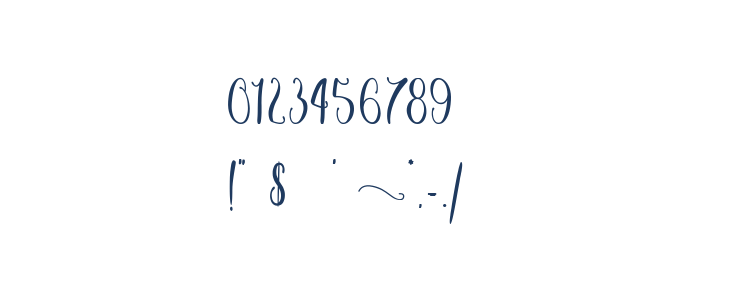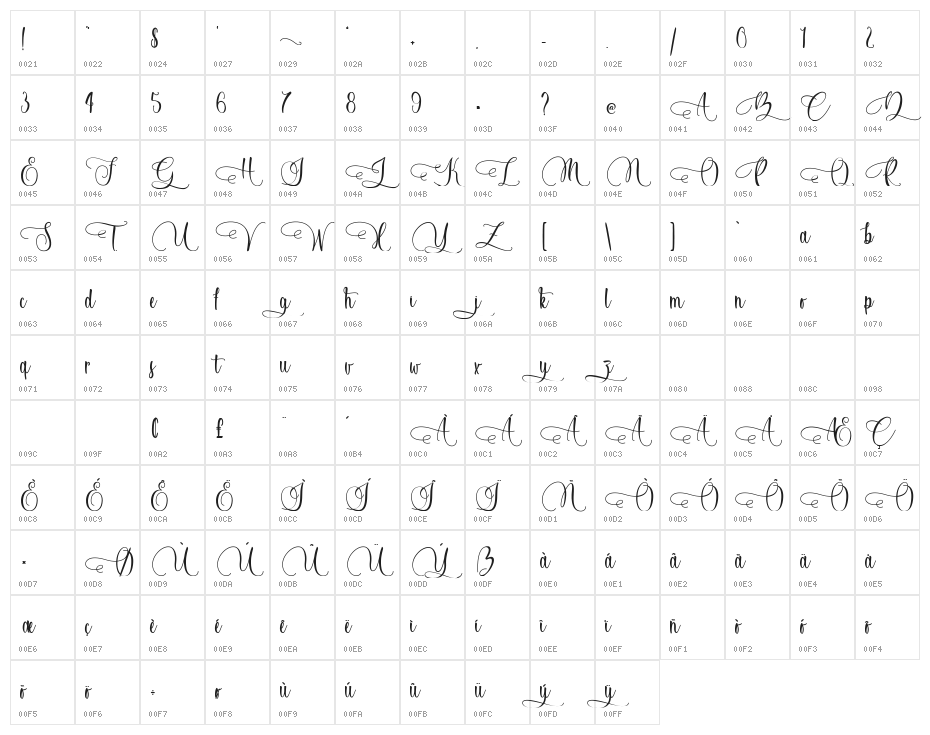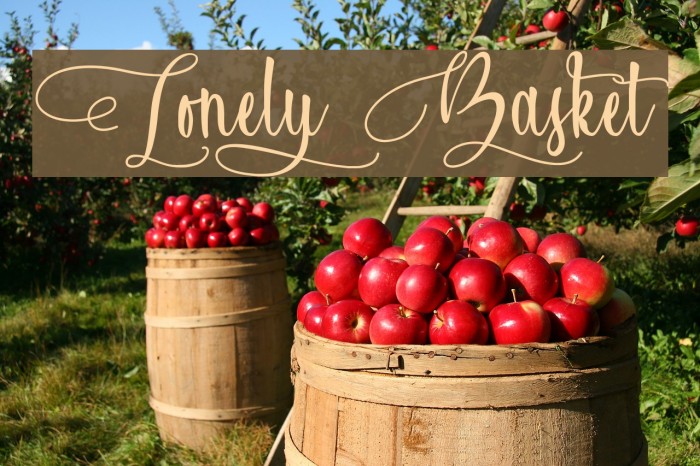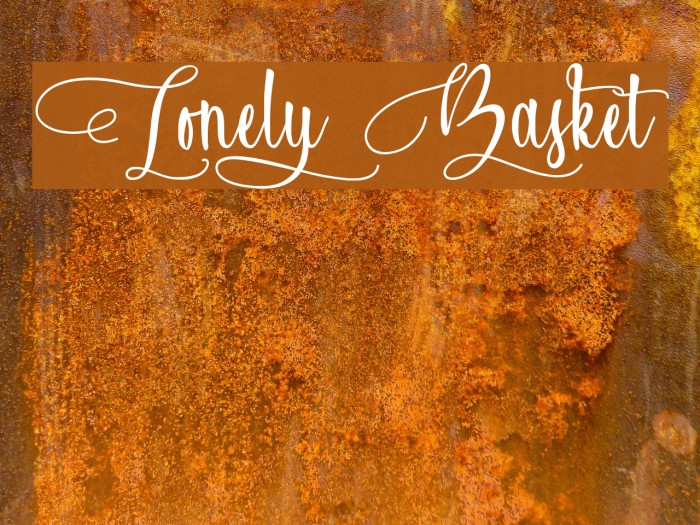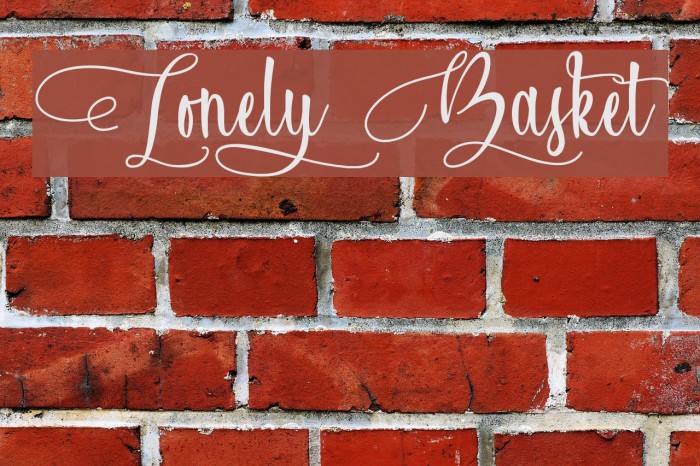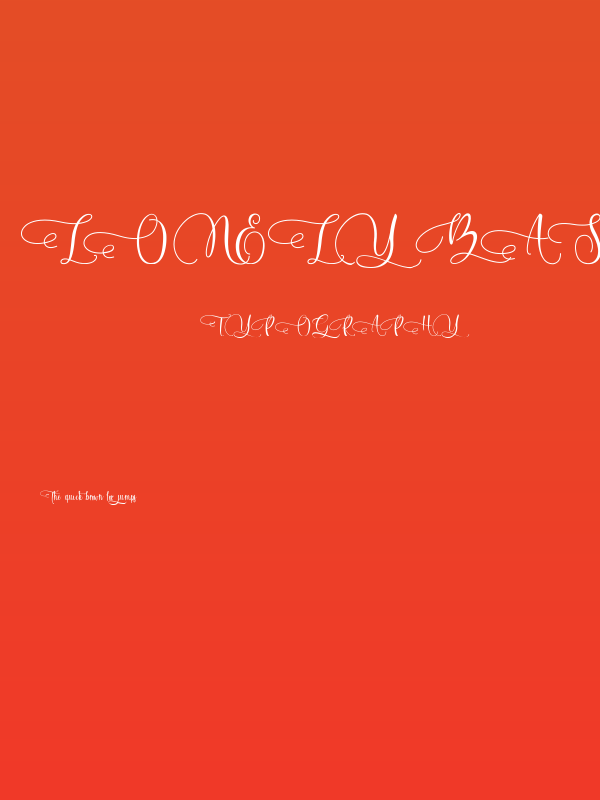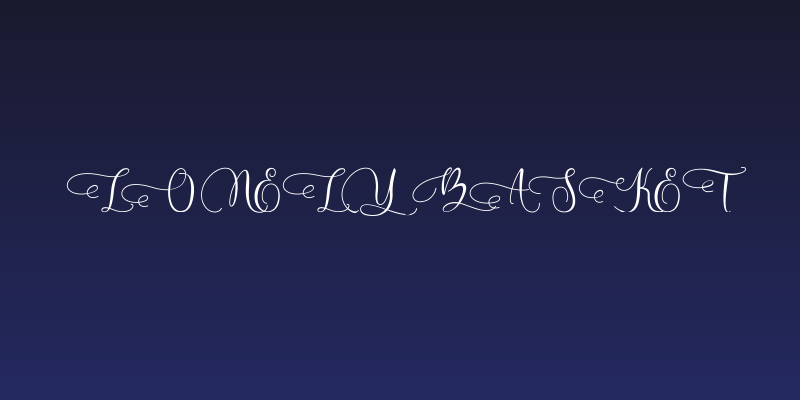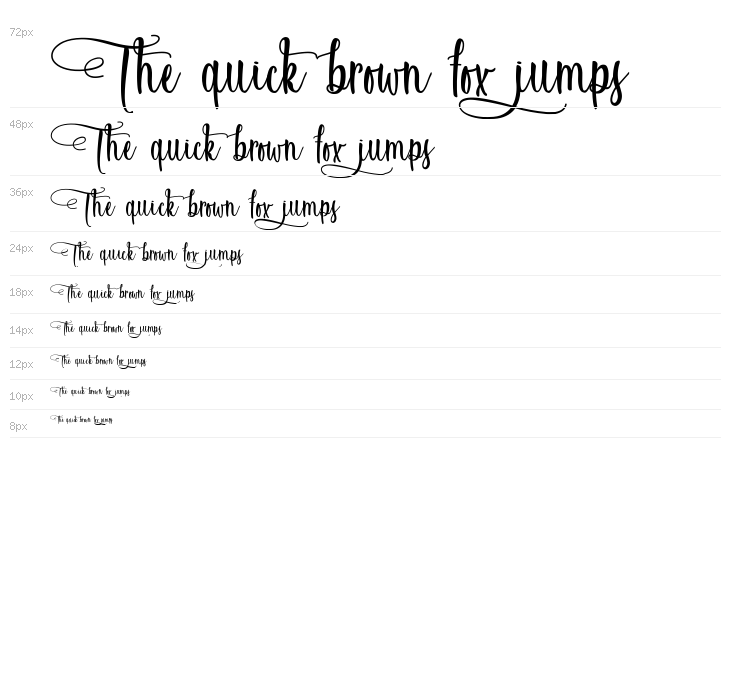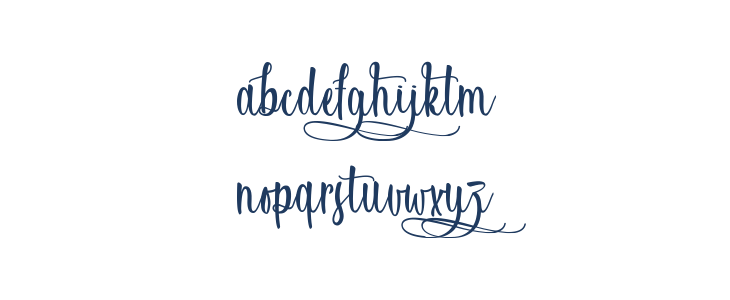
Lonely Basket Font
Lonely Basket Description
This font features an elegant and flowing script style, characterized by its intricate swirls and loops. The uppercase letters are particularly ornate, with each character adorned with elaborate flourishes that extend beyond the baseline and cap height, creating a sense of movement and grace. The lowercase letters maintain a more restrained elegance, with subtle curves and a slightly more compact form. The numerals and special characters are consistent with the overall decorative theme, ensuring a cohesive look across all text elements. This font's design is both sophisticated and playful, making it suitable for a variety of creative applications.